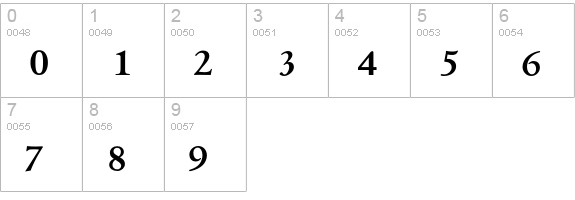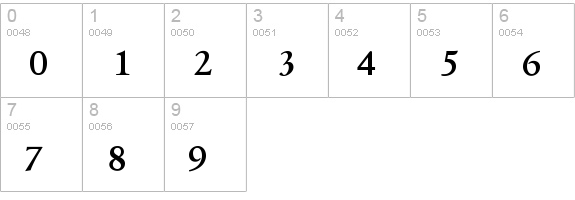
AsdanteBold Font Details
AsdanteBold is a striking and versatile font that exudes elegance and sophistication. With its bold and contemporary design, this typeface is perfect for making a statement in any design project. The strong, clean lines of AsdanteBold make it ideal for headlines, logos, branding, and more. Best of all, AsdanteBold is available for free download at FontsMarket.com. This means you can add this stunning font to your collection without any cost, making it a valuable resource for designers looking to enhance their projects with a touch of bold style. Don't miss out on the opportunity to elevate your designs with the timeless appeal of AsdanteBold.